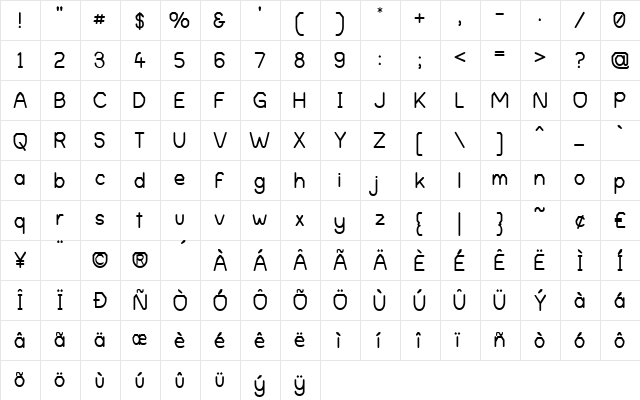
Alpha Romanie G98 Regular
Design Context for Alpha Romanie G98 Typeface
Alpha Romanie G98 offers clean, dependable letterforms without strong stylistic allegiance, making it a practical choice for designers who need flexibility.